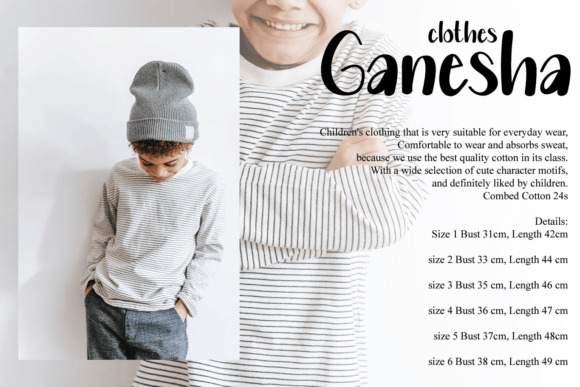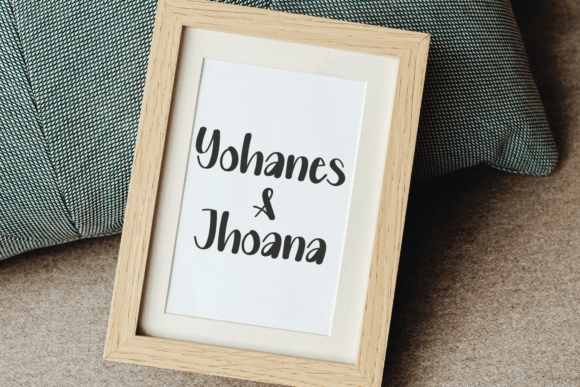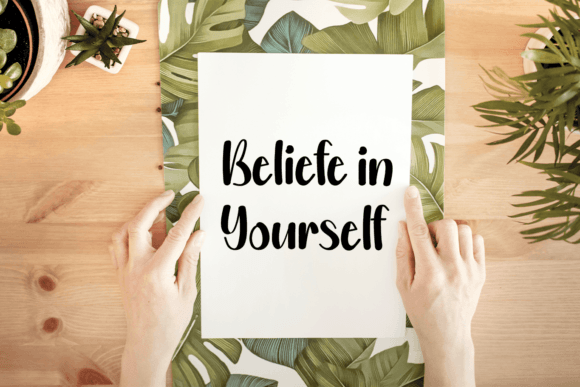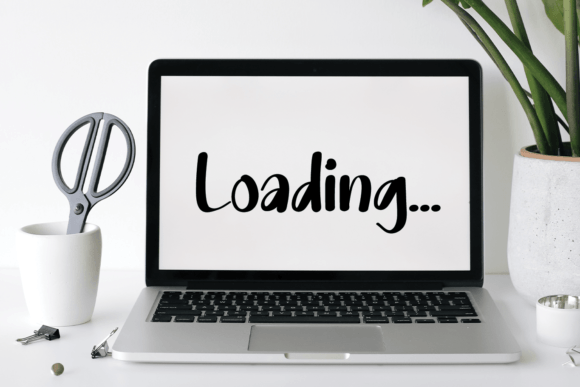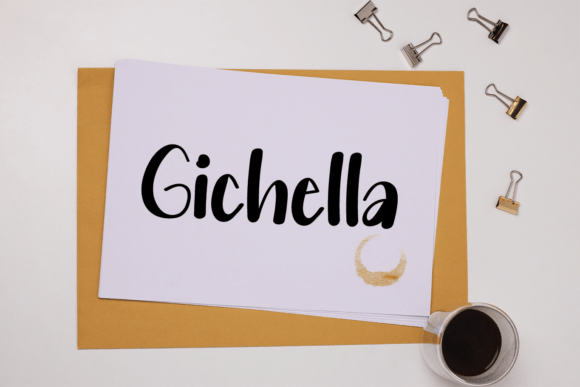
Jollie Font
About Jollie Font
“Jollie” is a script font that embodies elegance and grace with its flowing and seamless letterforms. Its chic style makes it a perfect choice for various creative projects, adding a touch of sophistication to every design it graces.
In wedding invitations, “Jollie” exudes a sense of romance and refinement. Its flowing and graceful script creates a luxurious atmosphere, setting the stage for a beautiful celebration of love. The font’s chic style enhances the overall aesthetic of the invitations, making them visually stunning and captivating for recipients.
For beautiful stationery art, “Jollie” adds an artistic flair. Its smooth and fluid lettering transforms ordinary stationery into exquisite pieces of art, perfect for personal use or gifting. Whether you’re creating custom letterheads, notecards, or personalized artwork, this font elevates the design, making it a joy to behold.
In eye-catching social media posts, “Jollie” becomes a focal point. Its graceful script draws attention and adds a touch of sophistication to your visuals. Whether used in quotes, promotional graphics, or lifestyle posts, the font’s chic style enhances the overall appeal, making your social media presence more engaging and visually appealing.
Moreover, “Jollie” is versatile enough to be used in a wide range of design projects. Its flowing and graceful script can enhance product packaging, branding materials, advertisements, and more. The font’s elegant charm makes it suitable for any context where a touch of sophistication and style is desired.
In essence, “Jollie” is more than just a font; it’s a design element that brings elegance and grace to your projects. Its flowing and graceful script captures the eye and adds a sense of refinement to every design it graces. Fall for its chic style, and let “Jollie” be the key to creating gorgeous wedding invitations, beautiful stationary art, eye-catching social media posts, and much more, making your designs truly unforgettable.